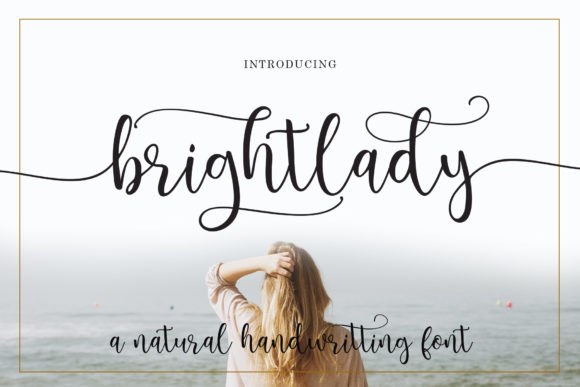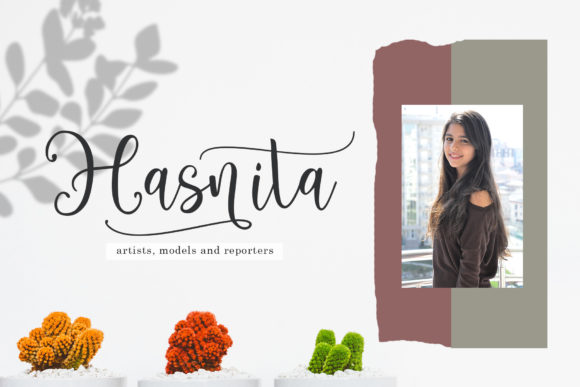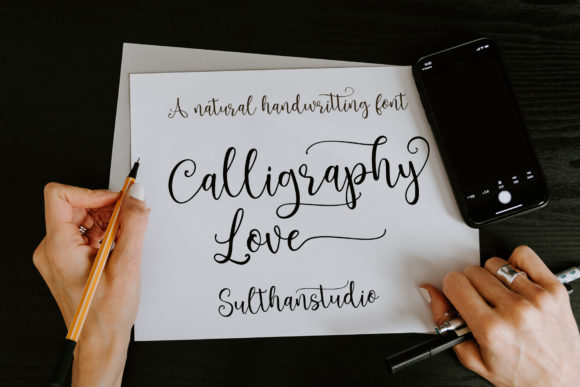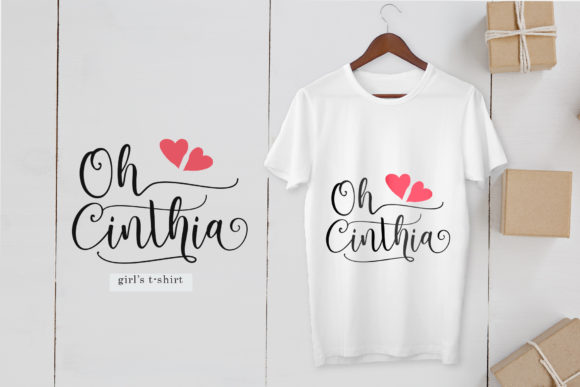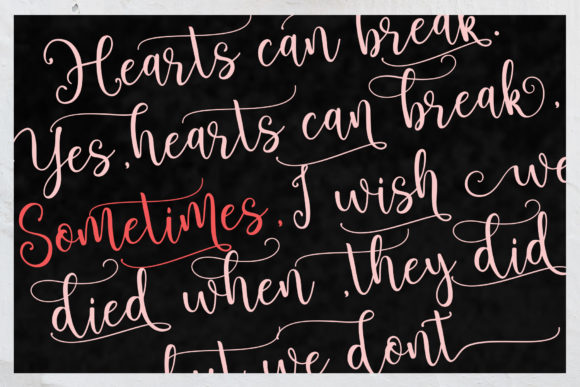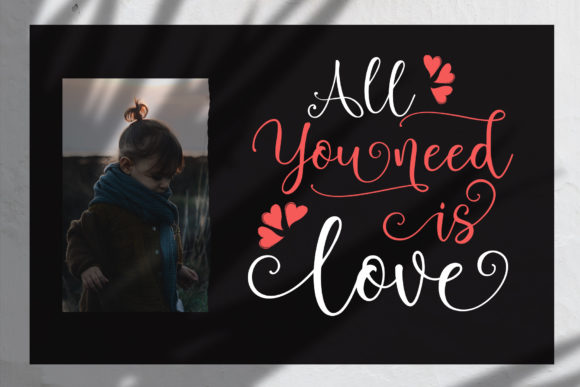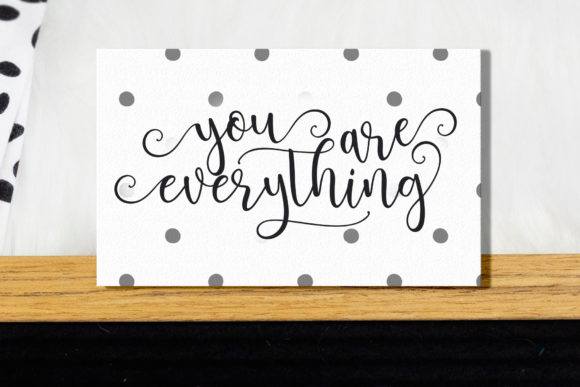
Brightlady Font
About Brightlady Font
Brightlady simplifies elegance into one truly outstanding handwritten font. It maintains its classy calligraphic influences while feeling contemporary and fresh. This font is PUA encoded which means you can access all of the amazing glyphs and swashes with ease!